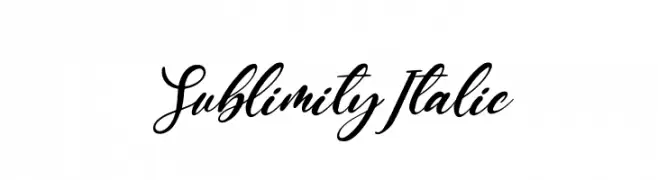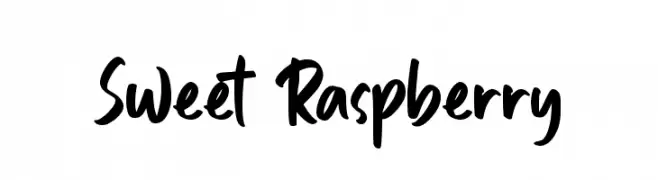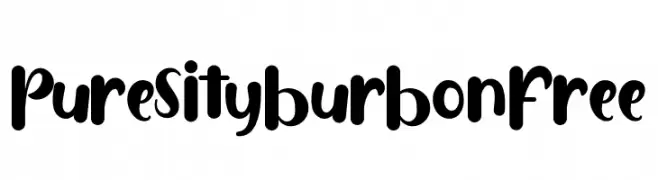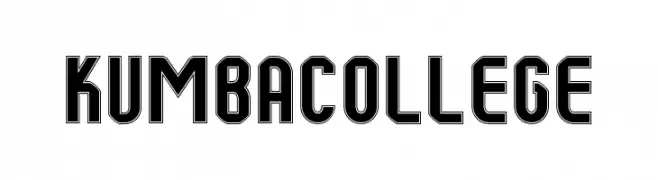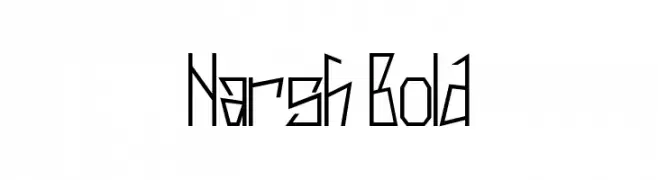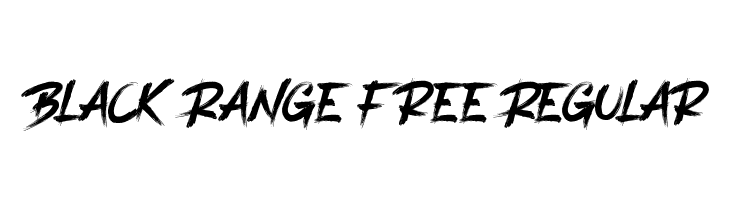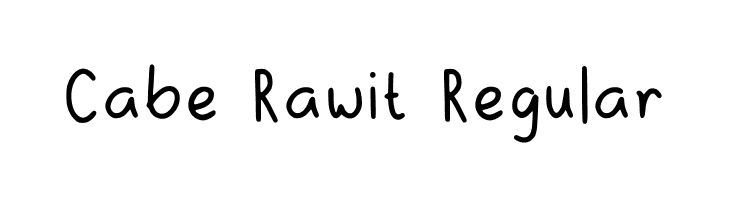
A playful, handwritten font with irregular strokes and a casual appearance.
A pixelated, retro-style font with a digital, blocky appearance.
Elegant script font with a handwritten style.
Graffiti-inspired decorative font with unique street art illustrations for each character.
A lively, handwritten-style font with dynamic strokes and a playful feel.
A bold, playful handwritten font with dynamic strokes and a casual style.
A bold, playful font with rounded and angular elements, perfect for creative projects.
A bold, geometric font with outlined characters and a modern style.
A bold, angular font with sharp edges and geometric shapes, ideal for modern designs.